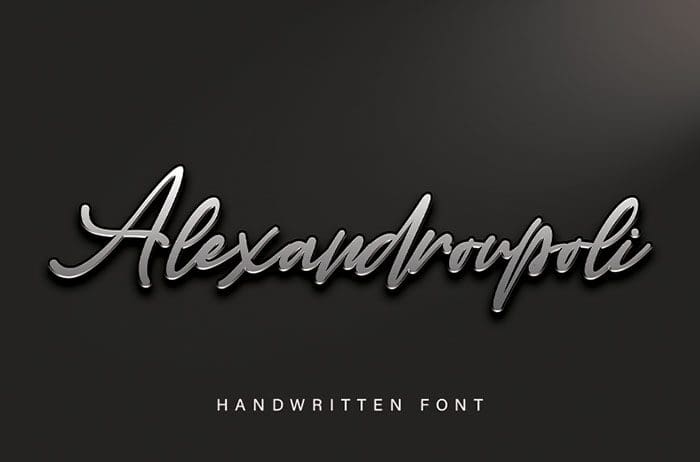
Alexandroupoli Handwritten Font
Alexandroupoli handwritten font is a beautifully designed that’s both authentic and charming. Use it to turn any design project into a true standout! Created this font by Thomas Aradea. You can also search more free Handwritten Fonts. We hope you enjoy this font.